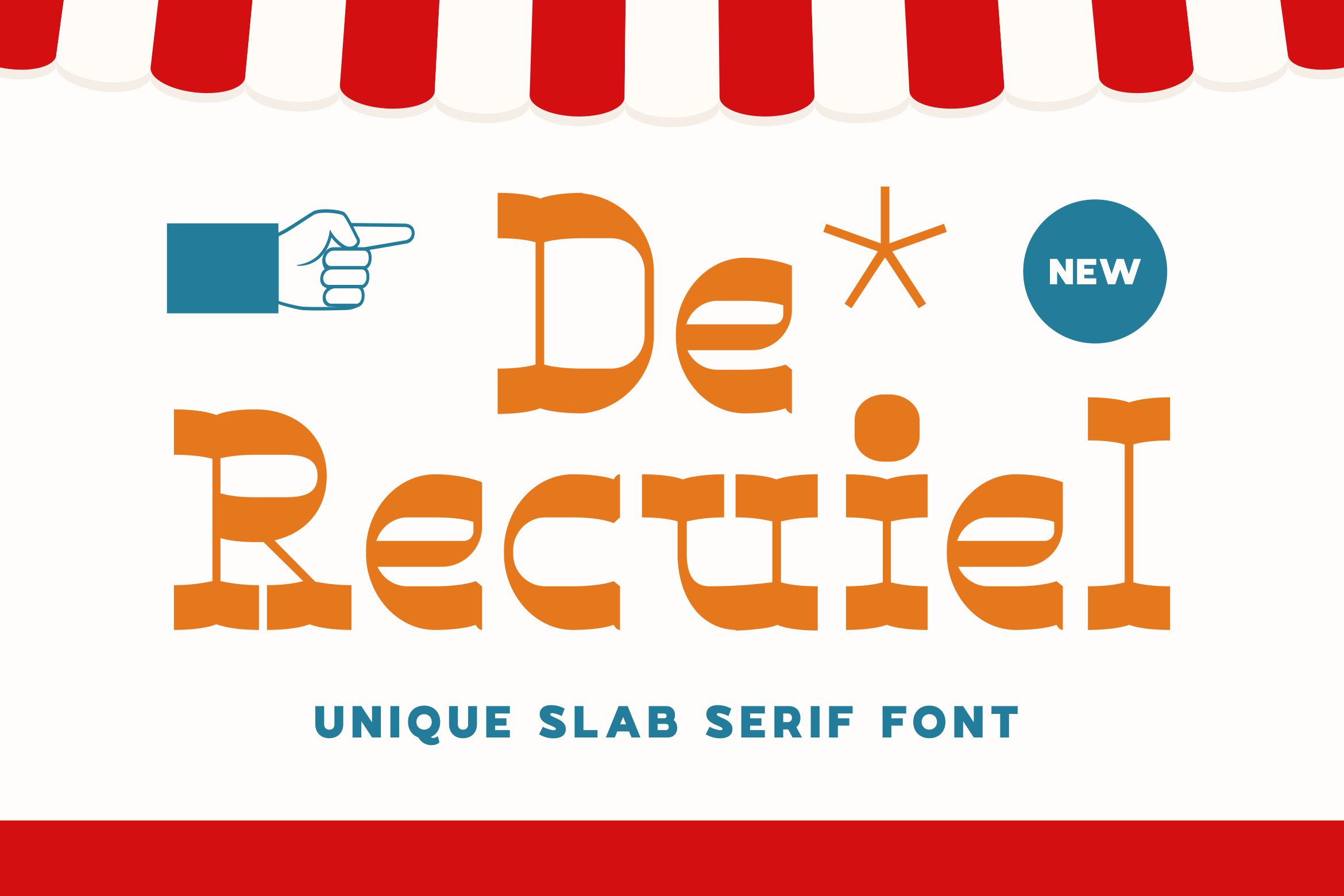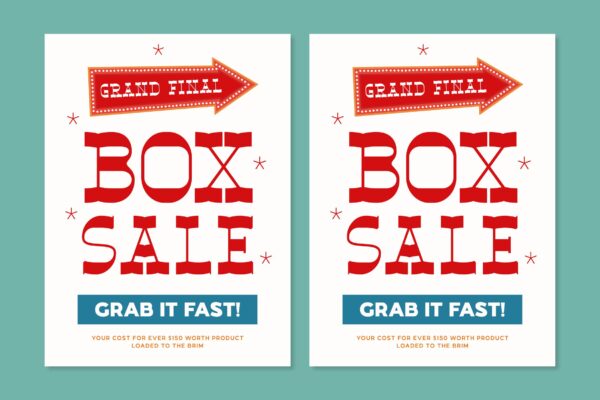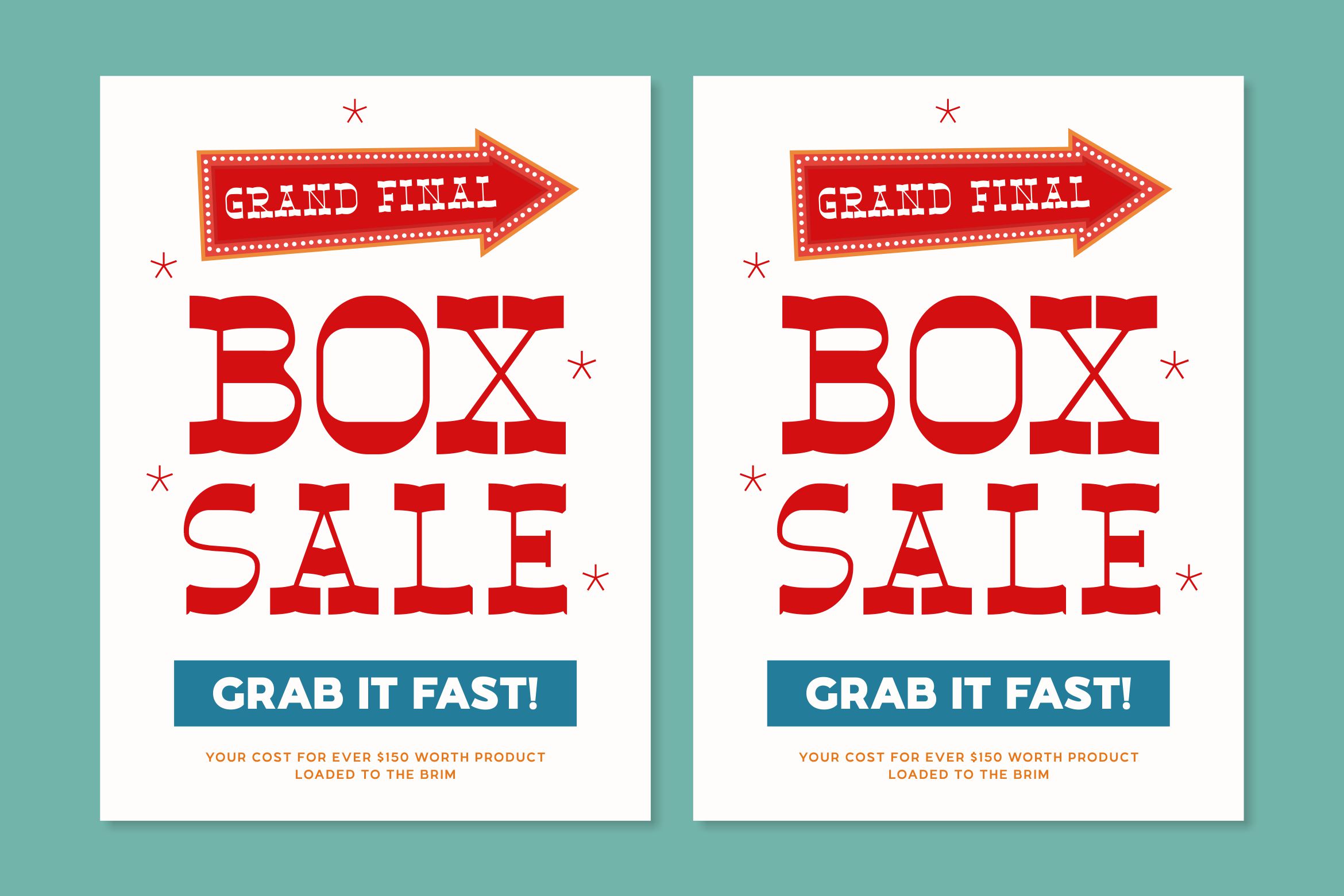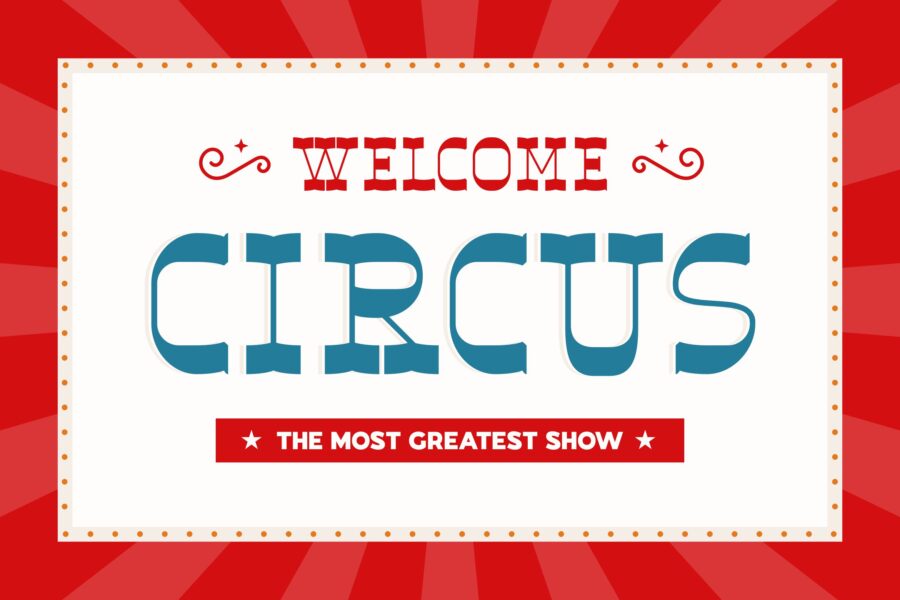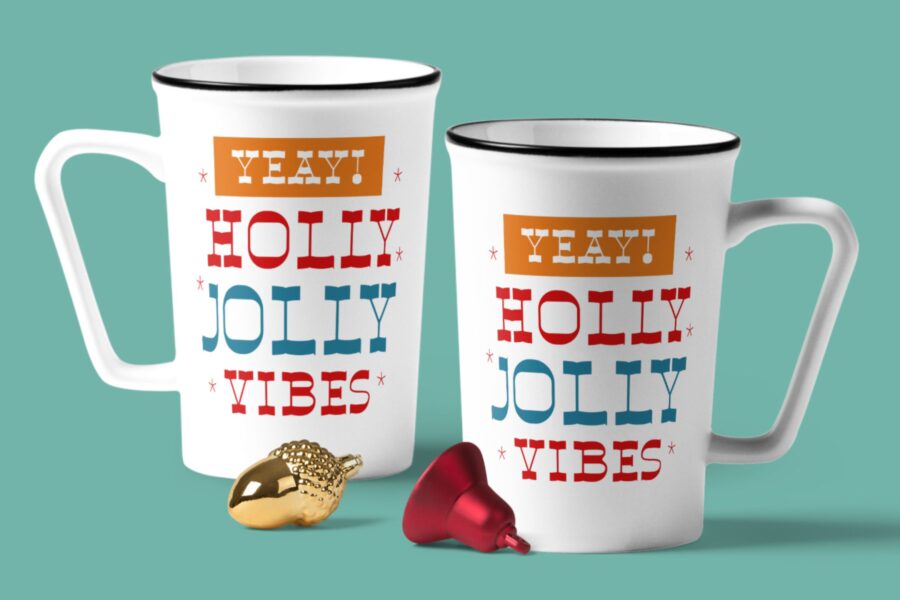
De Recuiel is a quirky and bold slab serif display font that brings a burst of retro joy to any design. Its unique, chunky letterforms and playful cuts are inspired by vintage circus posters, street fairs, and nostalgic storefronts. With a vibrant personality and attention-grabbing shapes, De Recuiel is perfect for creating designs that demand a bold, fun, and dynamic presence.
Complete with multilingual support, numbers, and punctuation, De Recuiel works beautifully for sale posters, children’s merchandise, food packaging, holiday themes, or any branding that wants to express joy and character. This font’s whimsical tone and stylized construction make it a perfect choice for standout headlines and lively visual storytelling.
De Recuiel